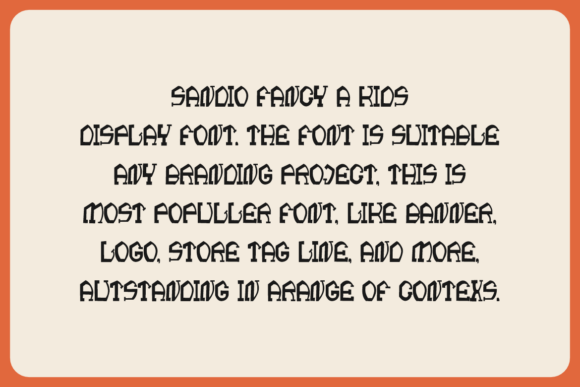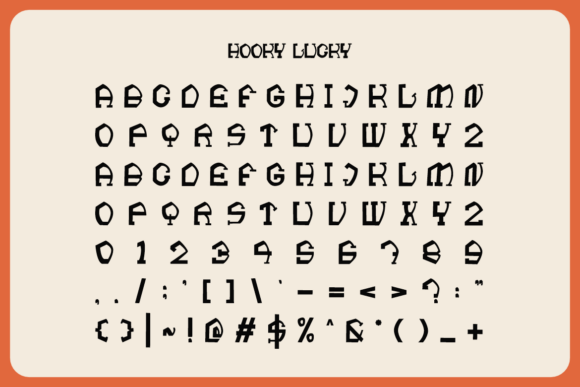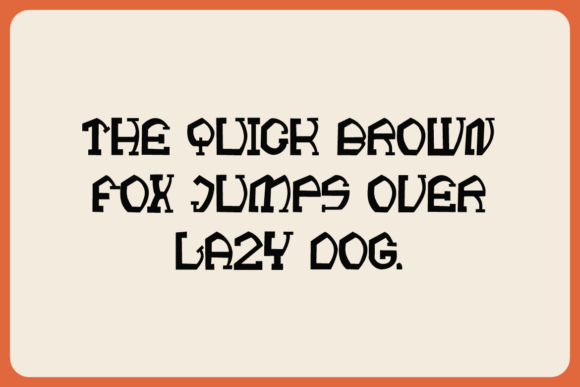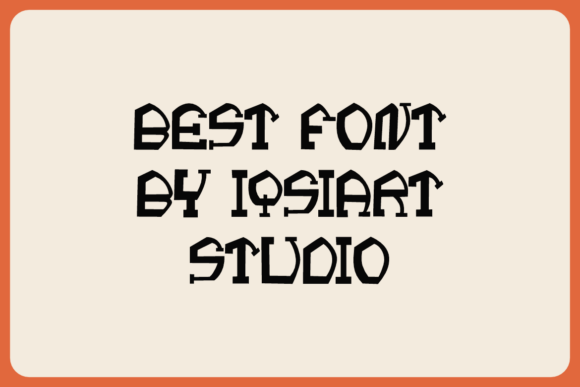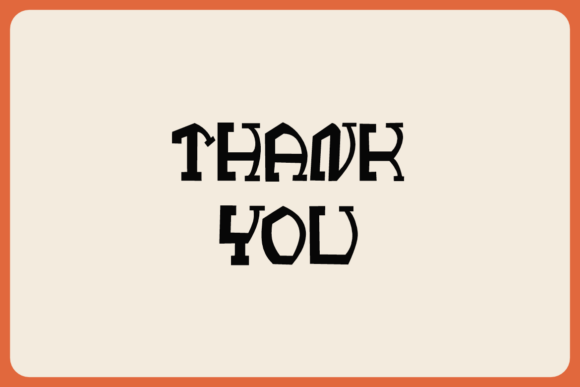
Introduction to Hooky Lucky Font
Hooky Lucky is a uniquely structured display font with edgy curves and quirky angles.
Great for graffiti art, streetwear branding, bold posters, and experimental designs, it adds a rebellious twist to any layout .
Key Features of Hooky Lucky Font
Why Choose Hooky Lucky Font?
Hooky Lucky Font offers exceptional quality and versatility, making it a valuable addition to your design toolkit. Whether you’re creating for personal projects or commercial use, Hooky Lucky Font delivers professional results.